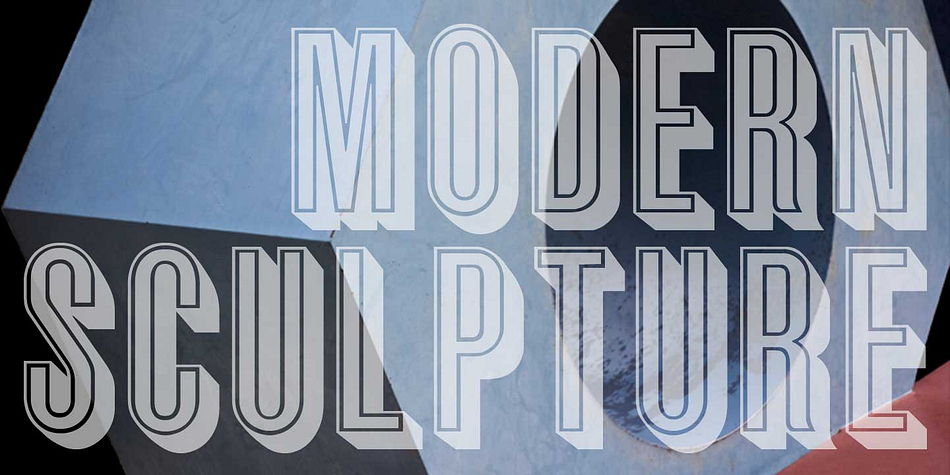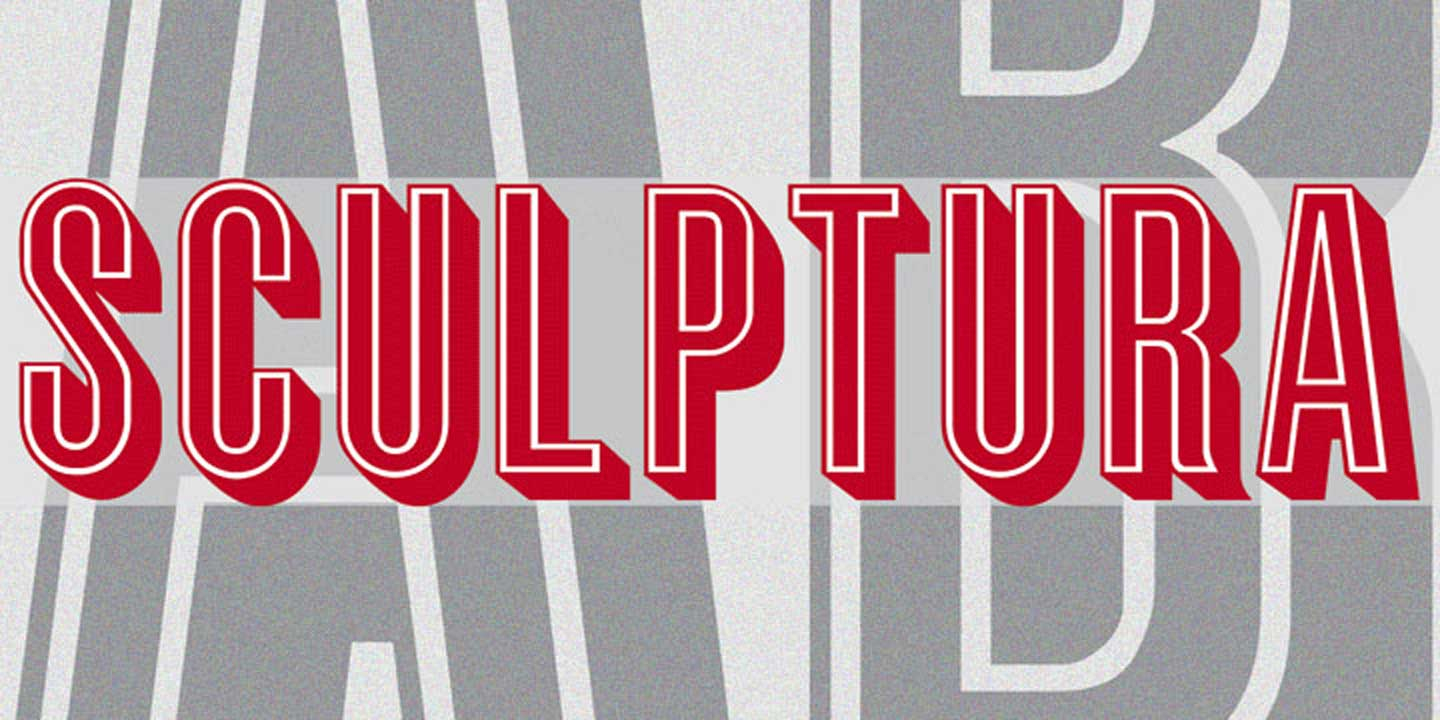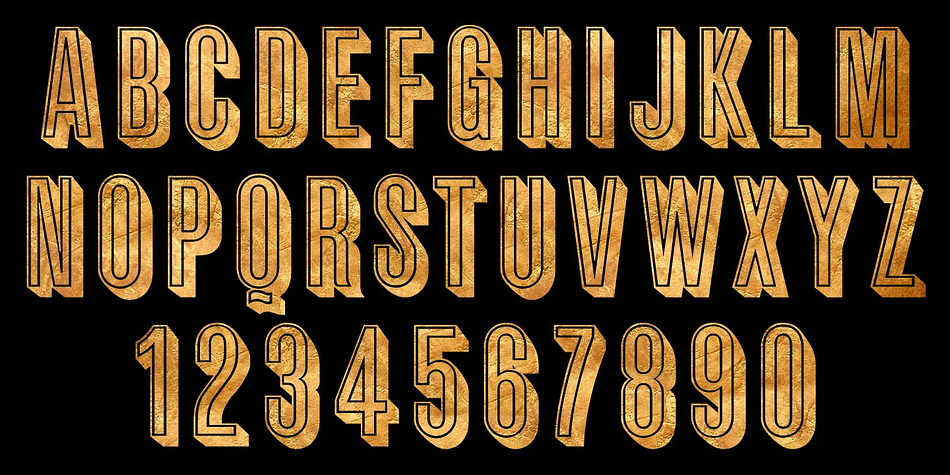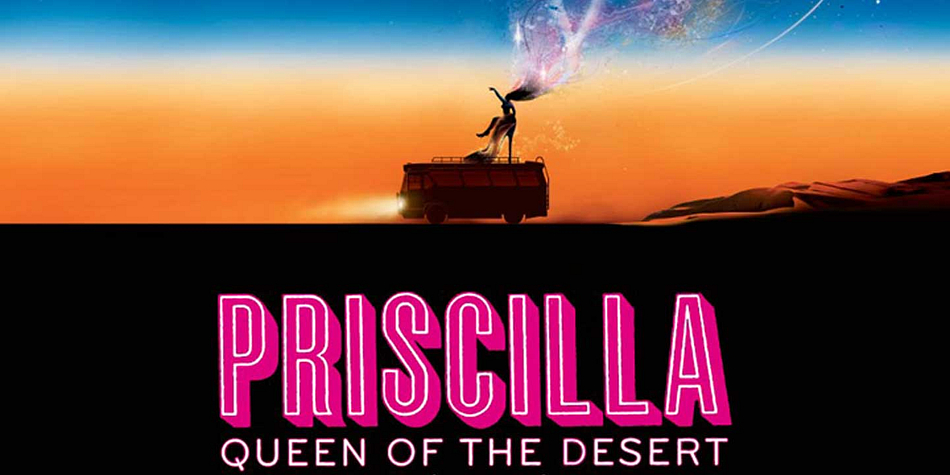
Sculptura CT is a display sans font published by CastleType.
Sculptura CT is a wonderful, very condensed, 3D font commissioned by Christopher Irving at I Think Studios. The CastleType revival is very clean-cut and contains uppercase only, numerals, punctuation. Sculptura was originally designed by the Swiss designer, Walter J. Diethelm (1913-1986) in 1957.